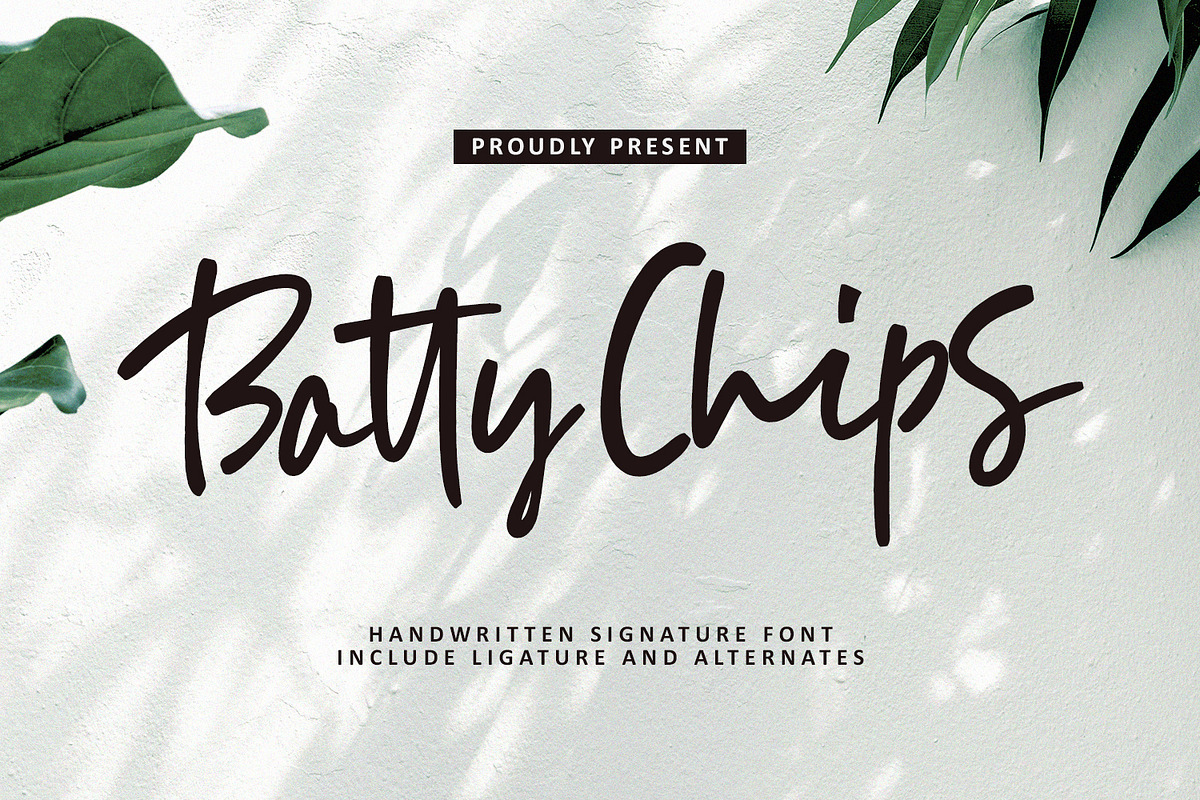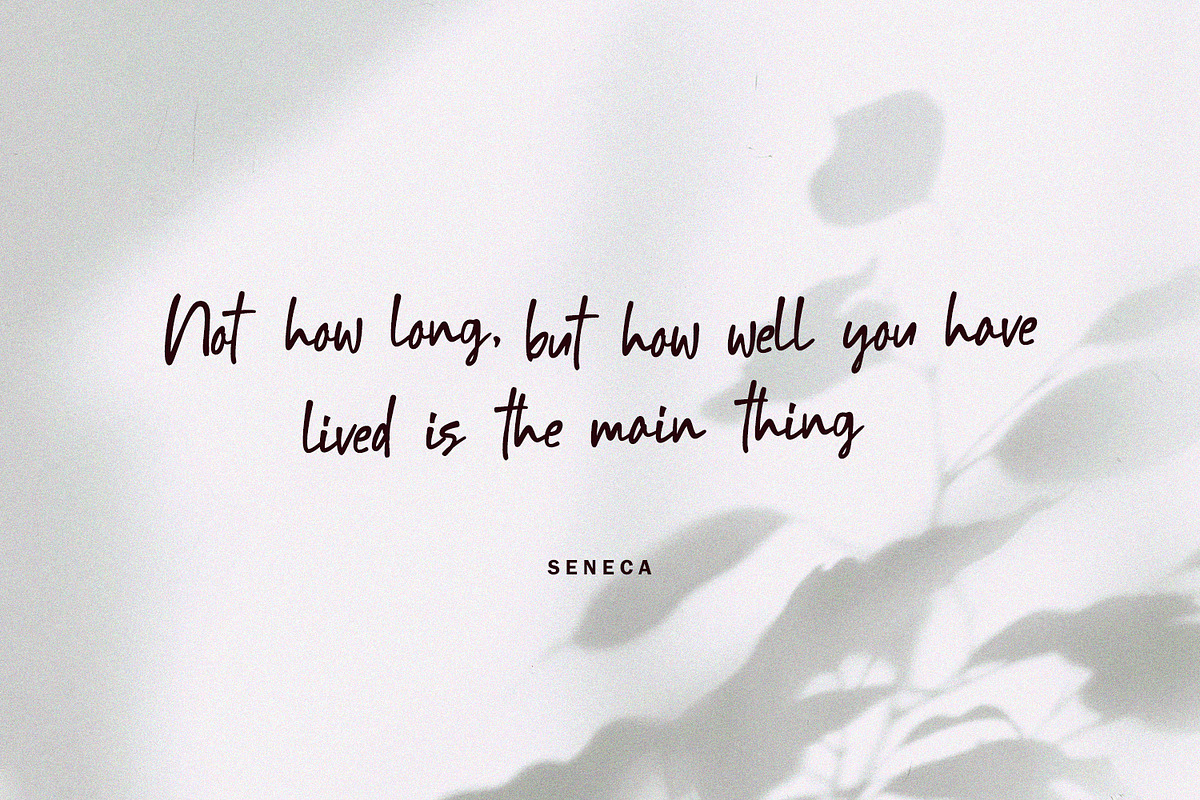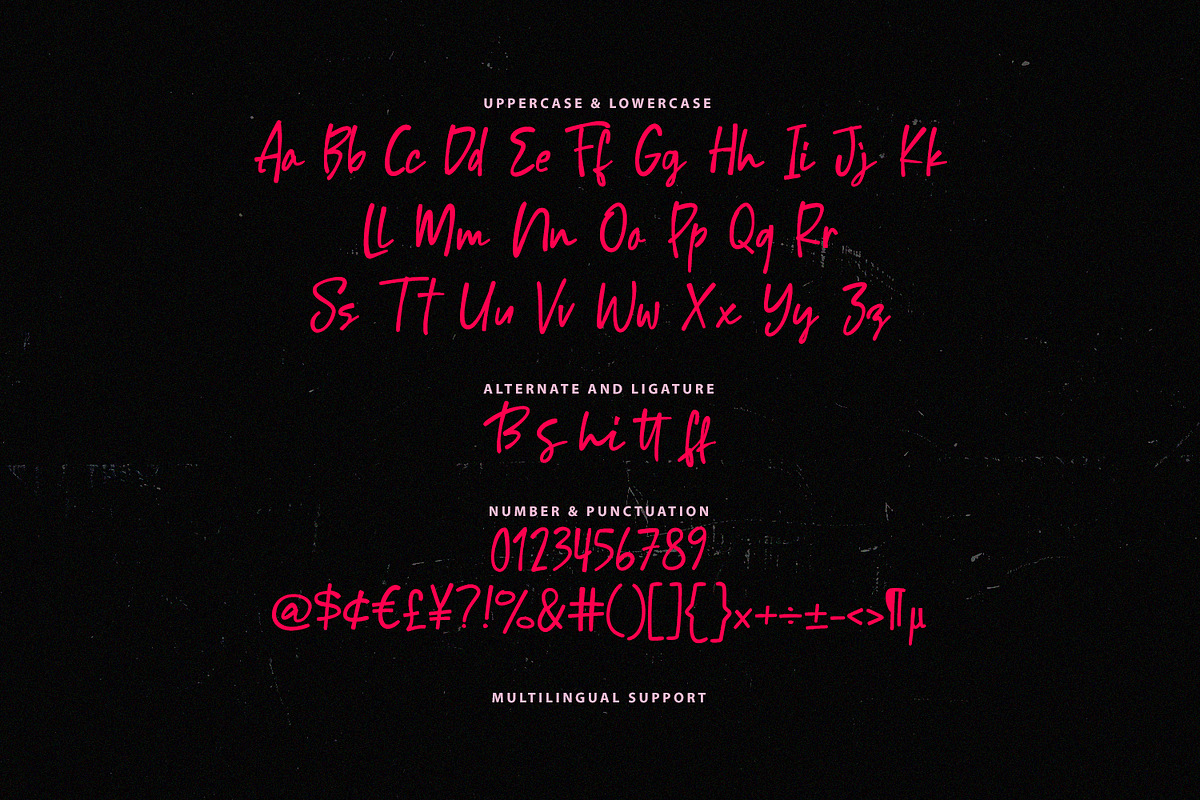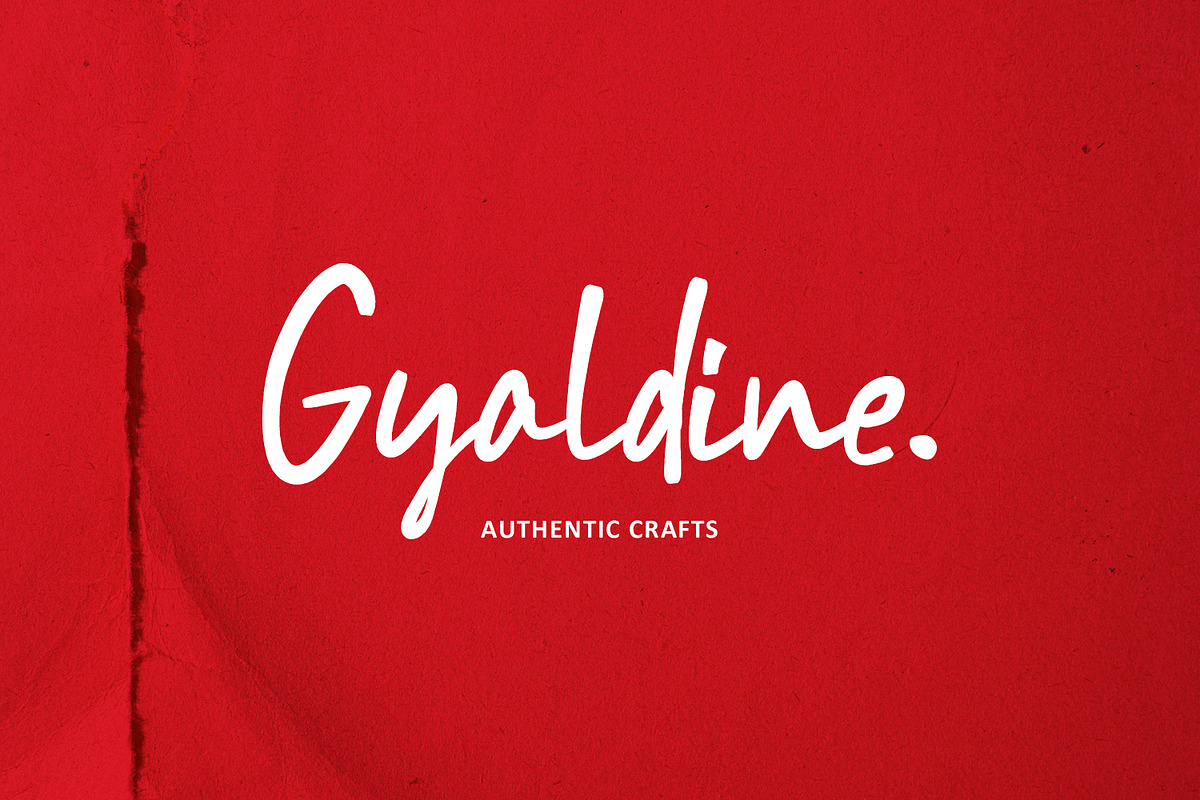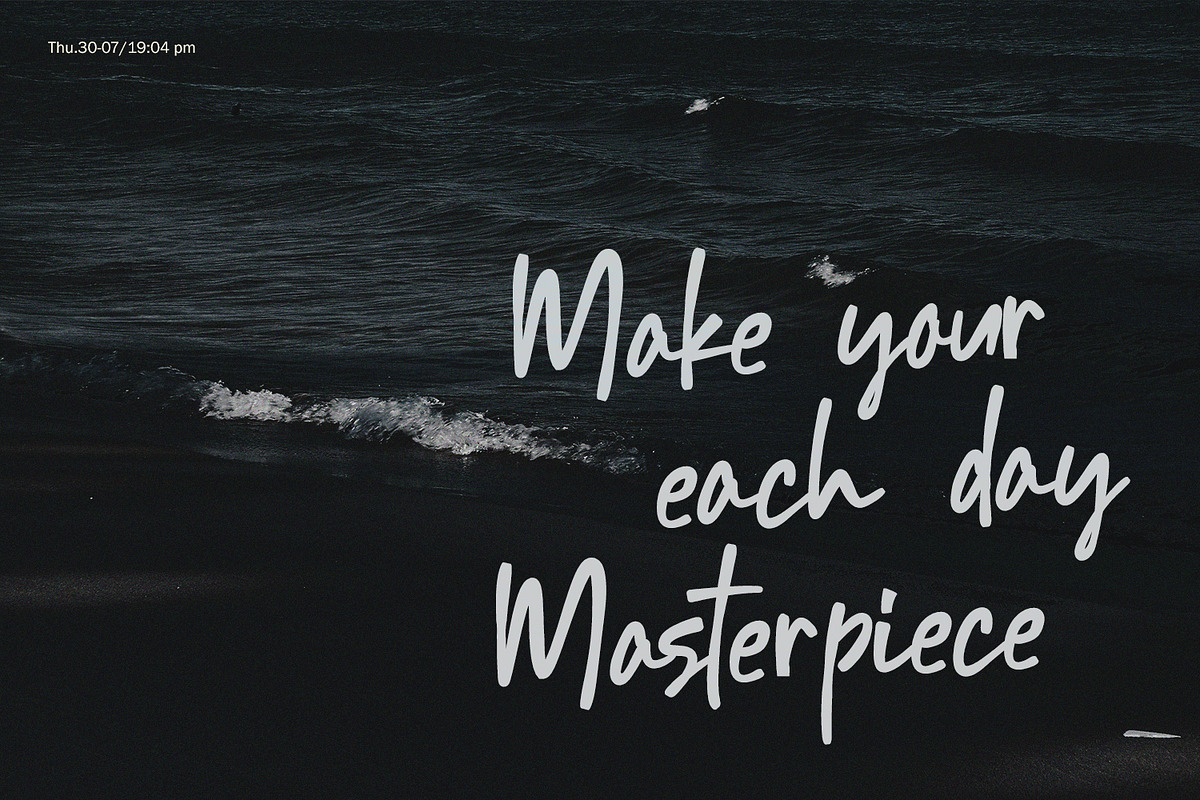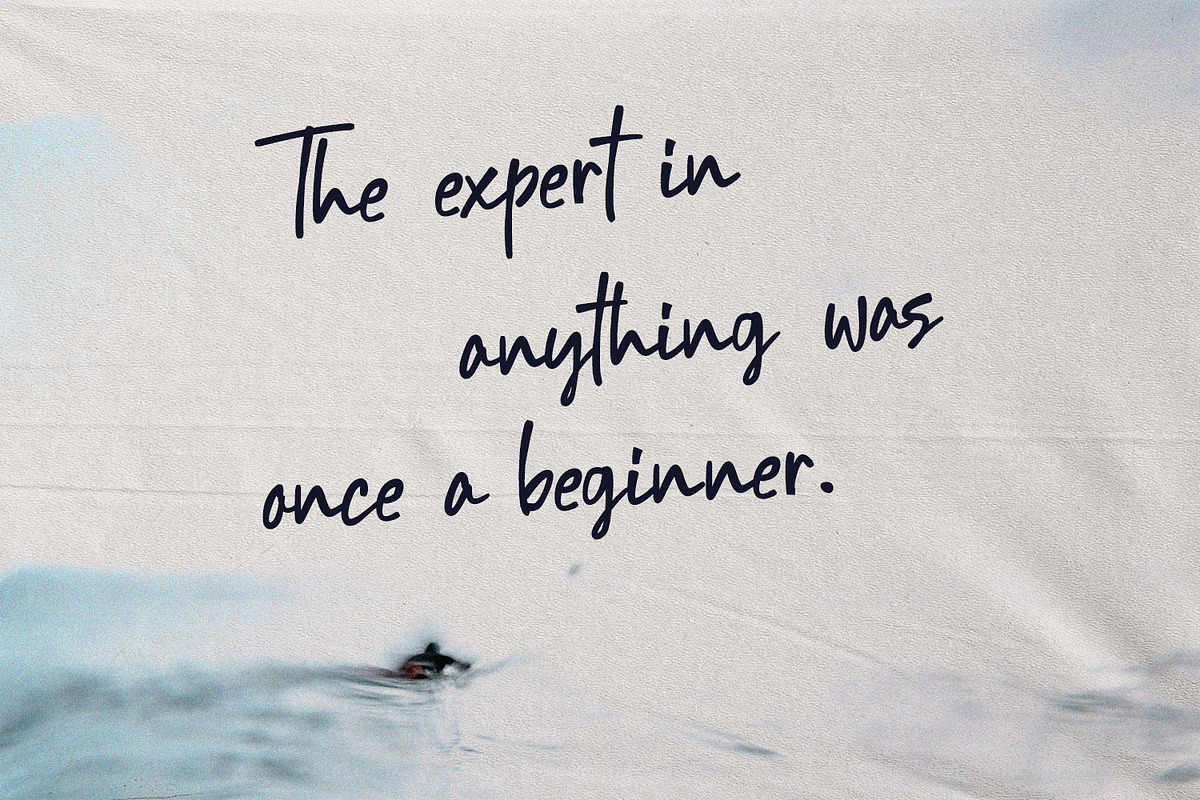
Batty Chips Handwritten Signature
Elevate your branding and designs with Batty Chips, a stylish and authentic handwritten signature font. Perfectly capturing the casual, elegant flow of real handwriting, this font adds a sophisticated touch to any project.
Batty Chips is designed with versatility in mind, making it the ideal choice for:
- Logotypes and Branding: Create memorable and unique business identities, watermarks, and signatures.
- Invitations and Stationery: Perfect for wedding invitations, greeting cards, and notes.
- Social Media and Quotes: Give your Instagram posts, blog headers, and inspirational quotes an instantly chic, handcrafted feel.
- Product and Photography: Add an authentic and professional signature to your physical products or portfolio images.
- Ligatures and Alternates